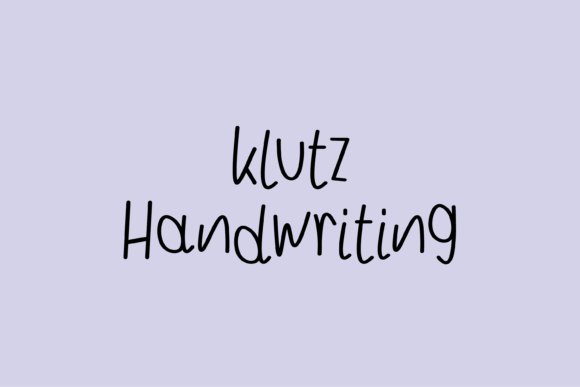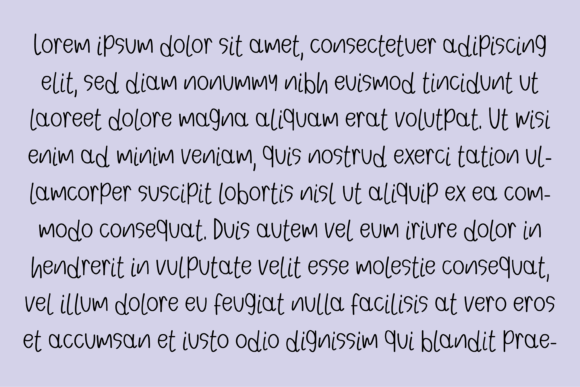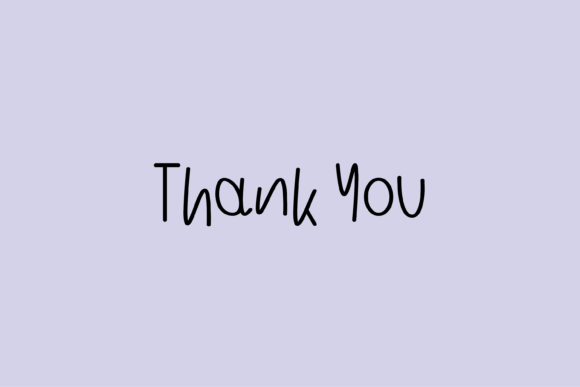
The Joy of Creating: Finding the Perfect Font for Your Designs
Have you ever stared at a blank page, desperately searching for the perfect font to bring your design to life? It’s a moment we’ve all experienced, and it can be frustrating. But what if I told you there’s a font that’s sure to put a smile on your face and make your designs shine?
Enter the Klutz Font, a charming and whimsical handwritten typeface that’s perfect for adding a touch of personality to your projects. Whether you’re creating a logo, wedding invitation, or advertisement, this friendly font is sure to brighten up your design. And the best part? It’s incredibly versatile, making it a valuable addition to any designer’s toolkit.
Klutz Font Key Features
- Font Family: Klutz Font is a sans-serif typeface designed for digital and print use.
- Unique Characteristics: Klutz Font features a playful, childlike aesthetic with rounded edges and a friendly feel, making it perfect for informal and creative projects.
- Character Set: Includes a comprehensive character set, including Latin, Cyrillic, and Greek alphabets, as well as punctuation and symbols.
Klutz Font Review
As a designer, I was initially drawn to Klutz Font due to its quirky, playful nature ✨. The font’s unique characteristics, such as its rounded edges and irregular letterforms, make it perfect for adding a touch of whimsy to children’s books, educational materials, or any project that requires a lighthearted tone.
- The font’s consistency is impressive, with each letterform maintaining its quirky feel throughout.
- Klutz Font’s legibility is surprisingly good, considering its unconventional design ✨.
- The font comes in a range of weights, making it versatile for various design applications.
- ⚠️ The font may not be suitable for projects requiring a more serious or professional tone.
- ⚠️ Klutz Font’s irregularities can make it challenging to pair with other fonts, requiring careful selection.
- ⚠️ Some users may find the font’s quirks distracting or unprofessional.
Klutz Font is a solid choice for designers seeking a unique, playful font for specific projects. While it may not be ideal for every design application, its quirky charm and versatility make it a valuable addition to any font library.
Tips for Getting the Most Out of Klutz Font
For the best results, use Klutz Font in conjunction with bold or italic styles to add emphasis. You can also experiment with different font sizes to create visual interest.
Klutz Font is ideal for creating playful, whimsical designs. Use it for invitations, party decorations, or social media graphics. Its unique style makes it perfect for adding a touch of personality to your designs.